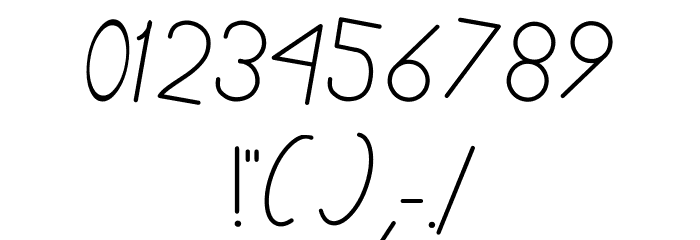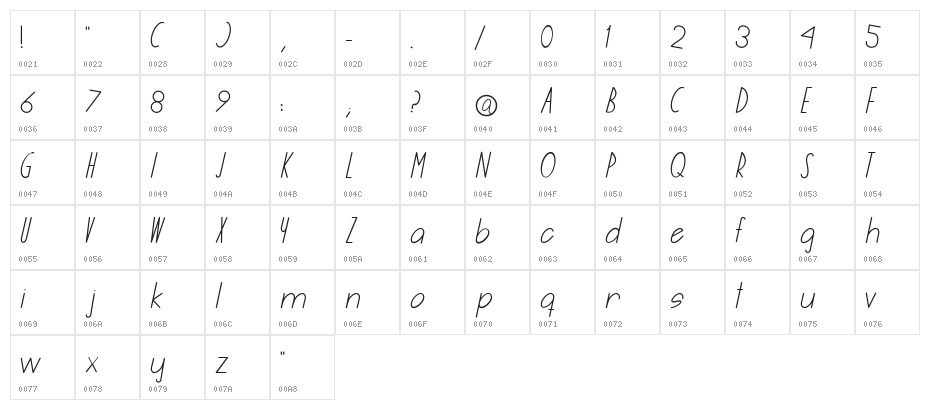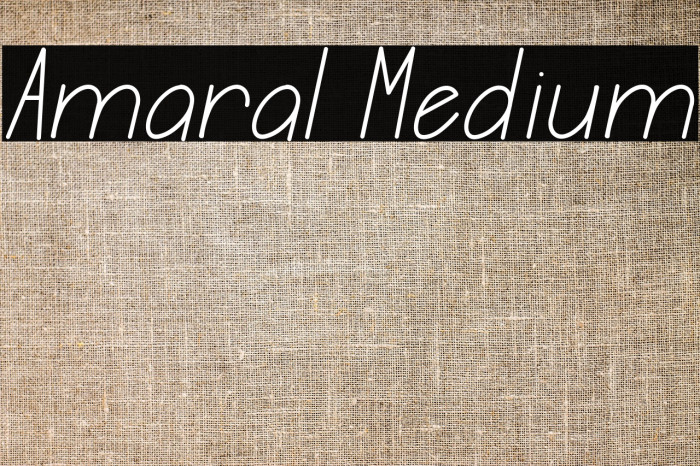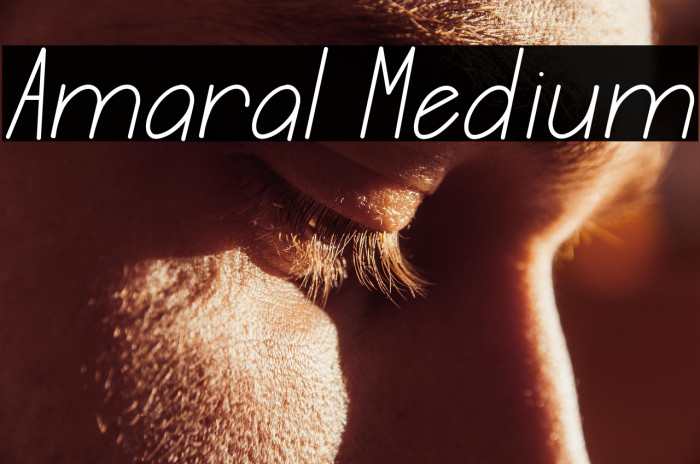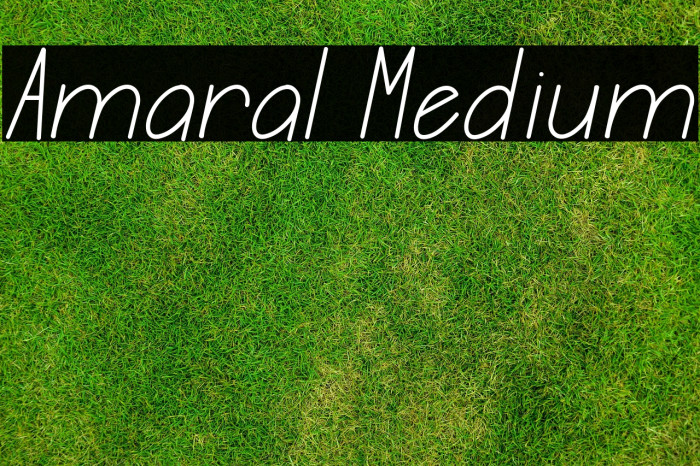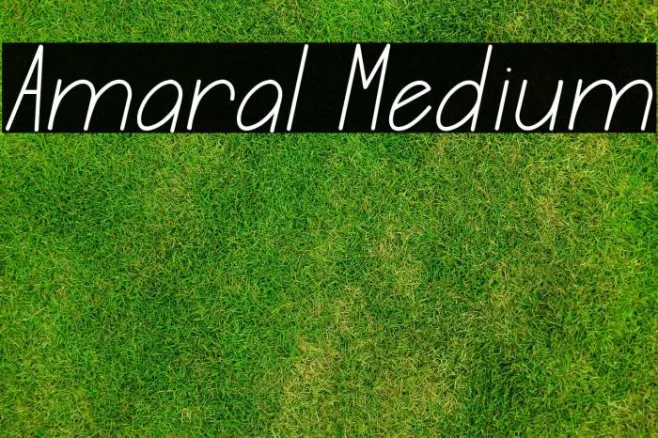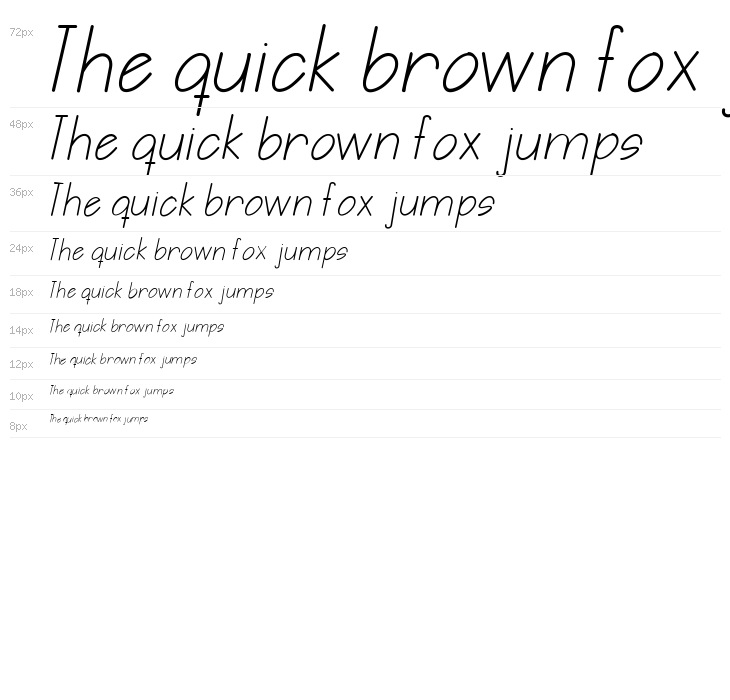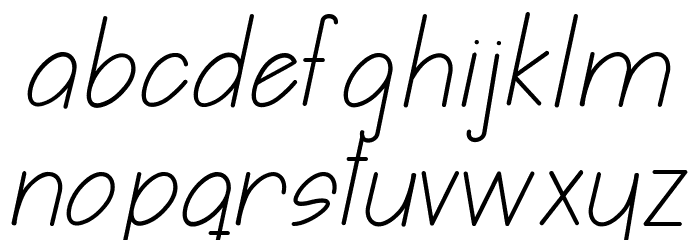
Amaral Medium Font
Amaral Medium Description
This font features a playful and casual handwritten style with a slight slant, giving it a dynamic and lively appearance. The characters are elongated and narrow, contributing to a unique and modern aesthetic. The strokes are consistent in width, providing a clean and uniform look. The font maintains a balance between readability and style, making it suitable for various creative projects. Its informal nature is accentuated by the slightly irregular shapes of the letters, which add a personal touch. The numbers and special characters follow the same design principles, ensuring coherence across all elements.